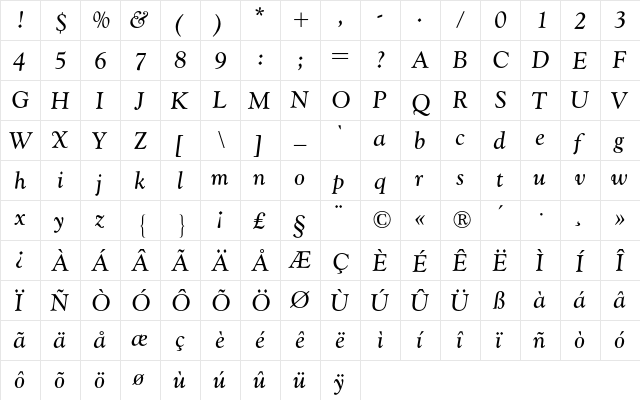
Goudy Catalogue BQ Regular
Design Context for Goudy Catalogue BQ Typeface
Goudy Catalogue BQ takes a measured approach to typography — its balanced proportions and neutral character make it a reliable workhorse for both digital and print work.